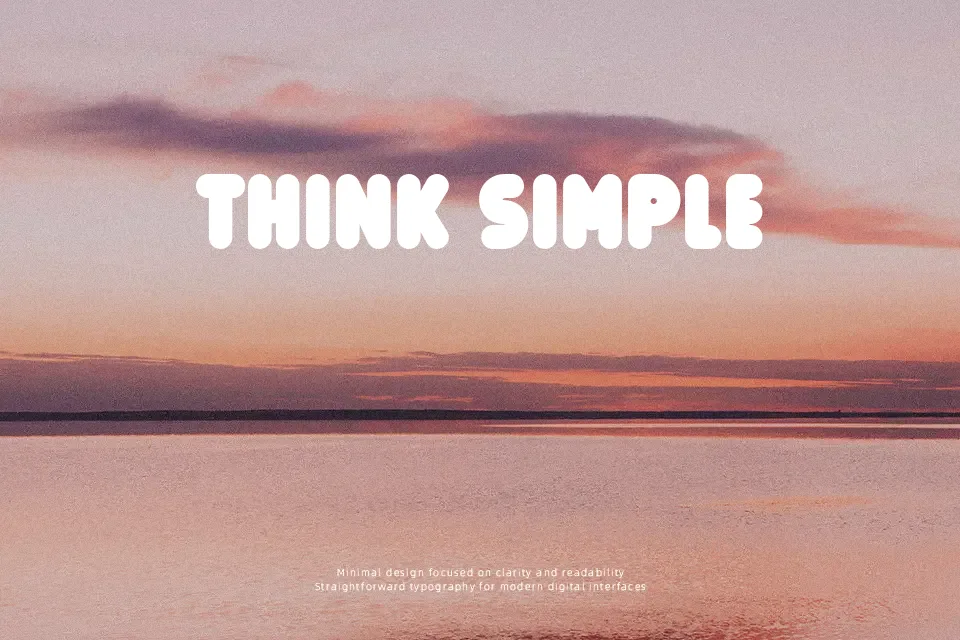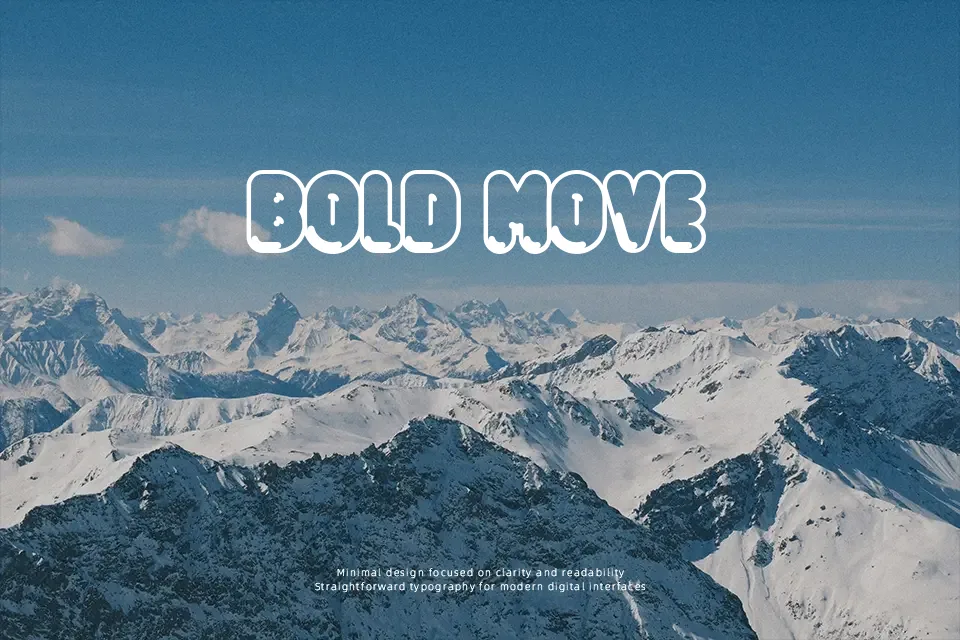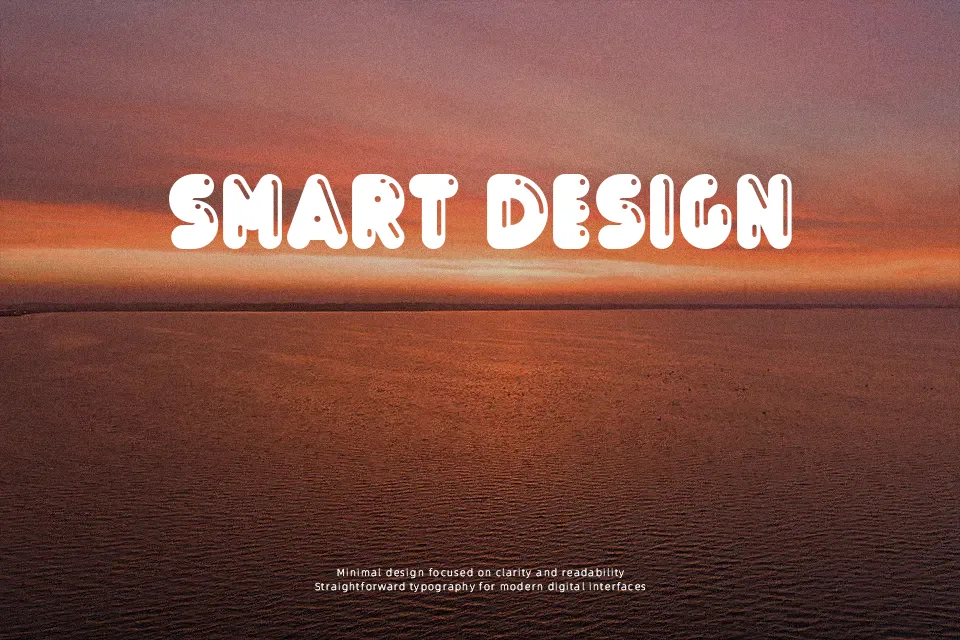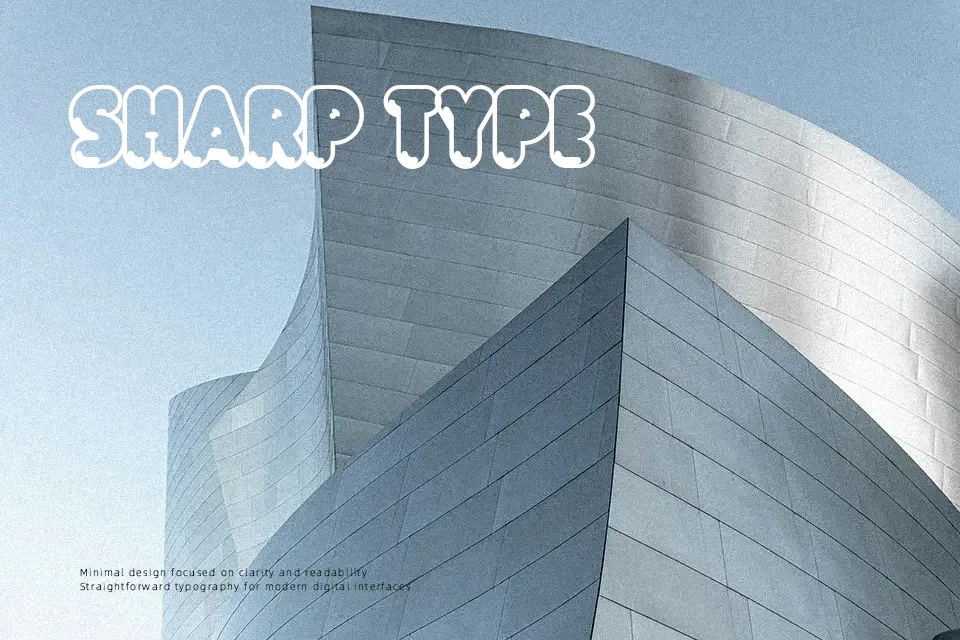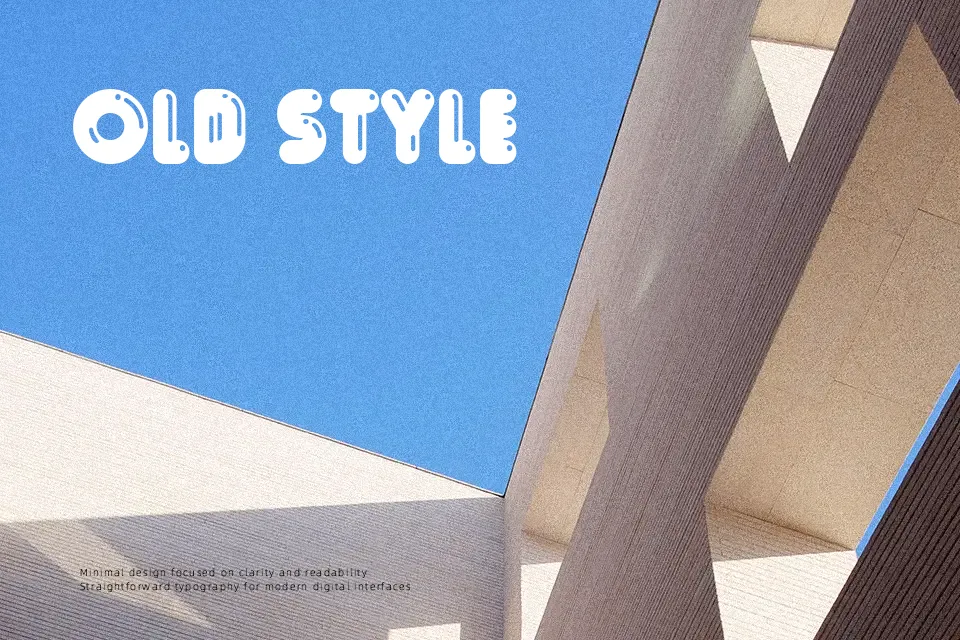
Boule Font
Designed by ingoFonts
Boule is a geometric display typeface constructed strictly from circles and constant stroke widths, so every corner and ending shares the same smooth radius. It consists only of capitals, with very bold, tightly spaced letters that quickly fill space and create a chunky, almost balloon-like texture on the page. That density can be a strength in short headlines, logos, and packaging where you want wording to read as a graphic shape as much as text. In longer text blocks or small sizes, however, the weight and tight spacing can hurt legibility, so it is better reserved for concise messages and eye-catching titles rather than body copy.
Short, punchy headlines on posters or banners
Playful logo marks and wordmarks with a rounded feel
Packaging layouts where bold, compact lettering is needed
Body text or paragraphs that need easy reading
Interfaces or small-size captions where clarity is critical
Layouts that require subtle, lightweight typography